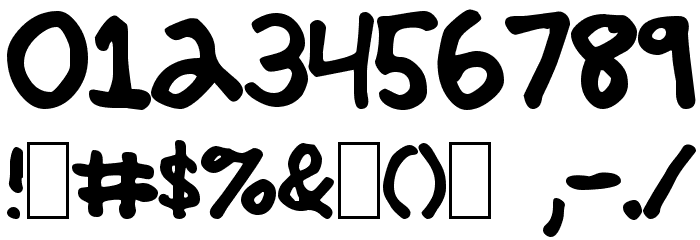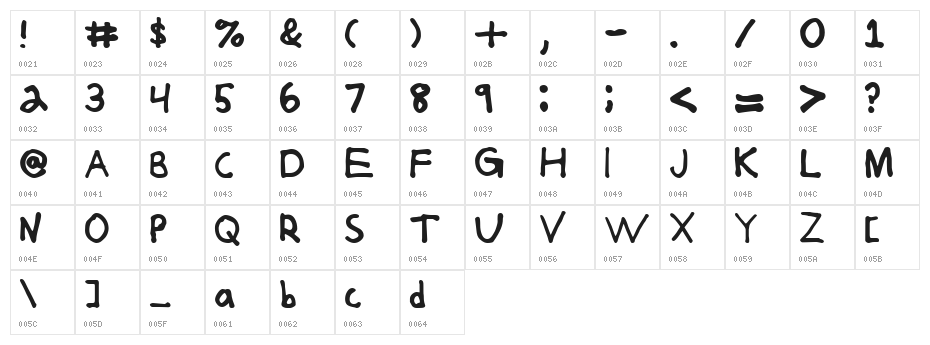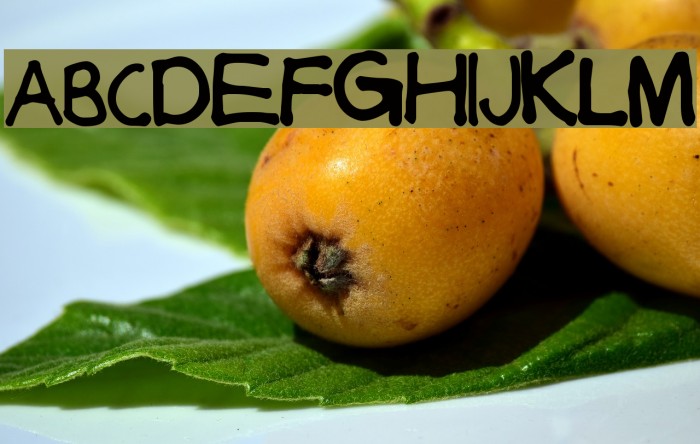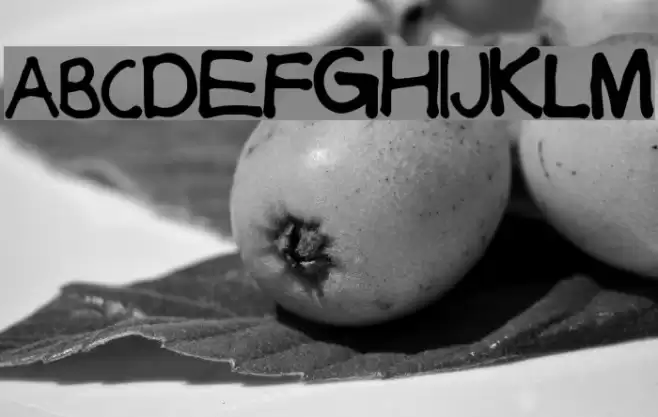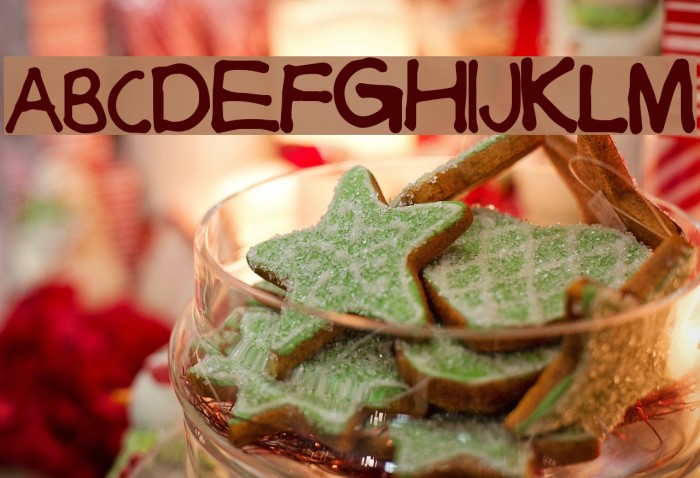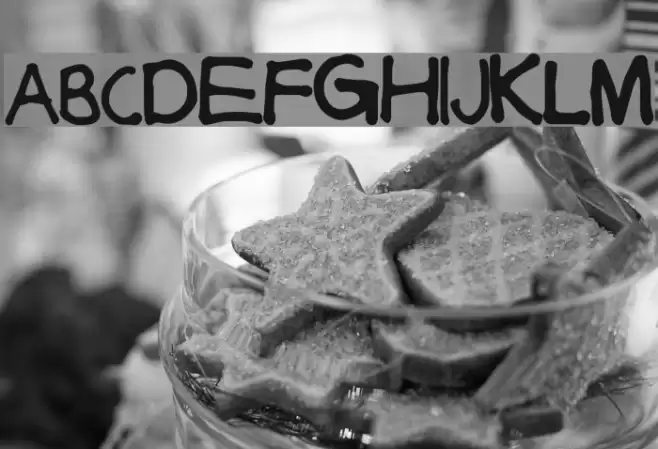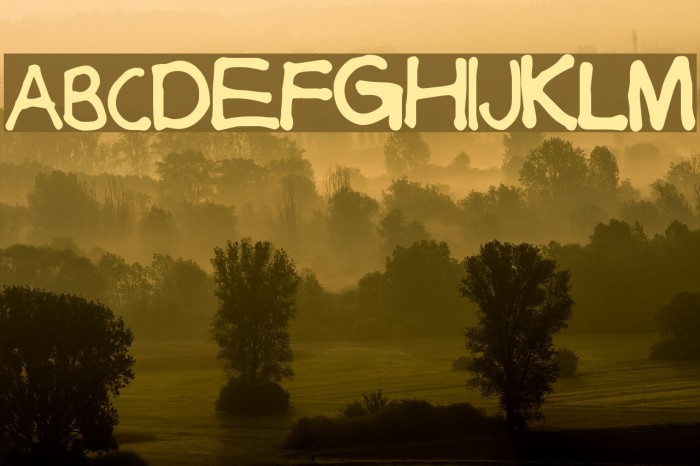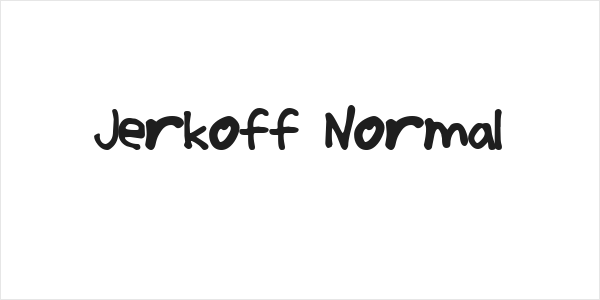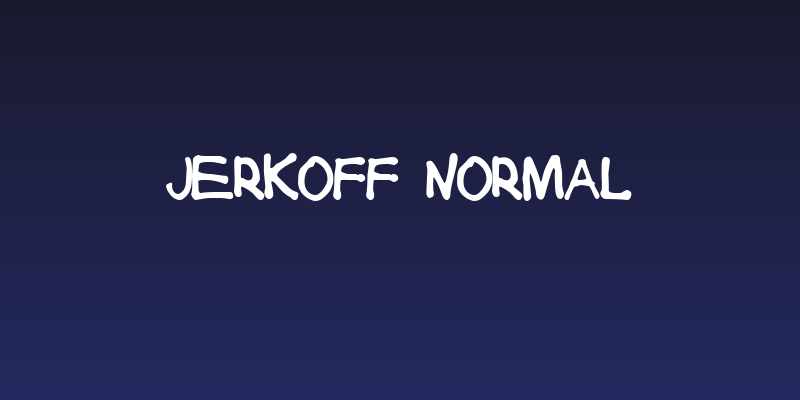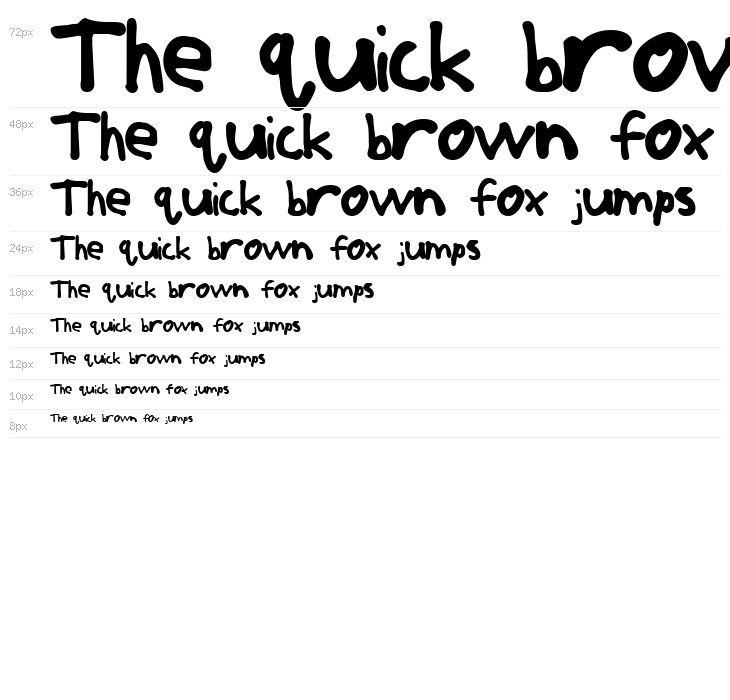
Jerkoff Normal Font
Jerkoff Normal Description
This font exhibits a playful and informal style, characterized by its hand-drawn appearance. The letters have a slightly uneven and organic quality, giving them a casual and approachable feel. The uppercase and lowercase letters maintain a consistent style, with rounded edges and a bold presence. The numbers and special characters follow the same aesthetic, ensuring a cohesive look across all glyphs. This font's unique personality makes it ideal for projects that require a touch of whimsy and creativity.
| Proposed Projects | Ideal for children's books, casual invitations, comic strips, or any project needing a fun and informal touch. |